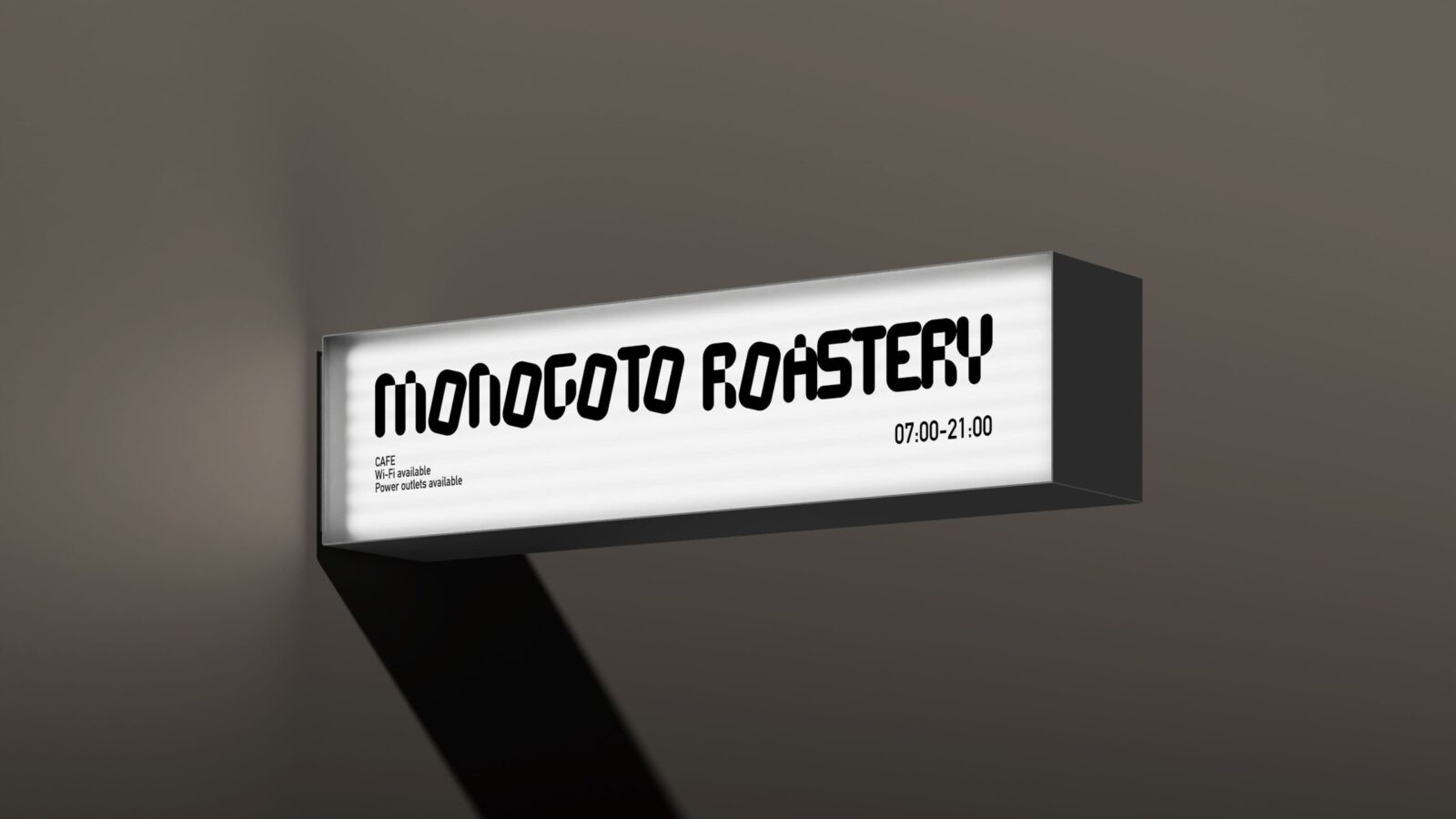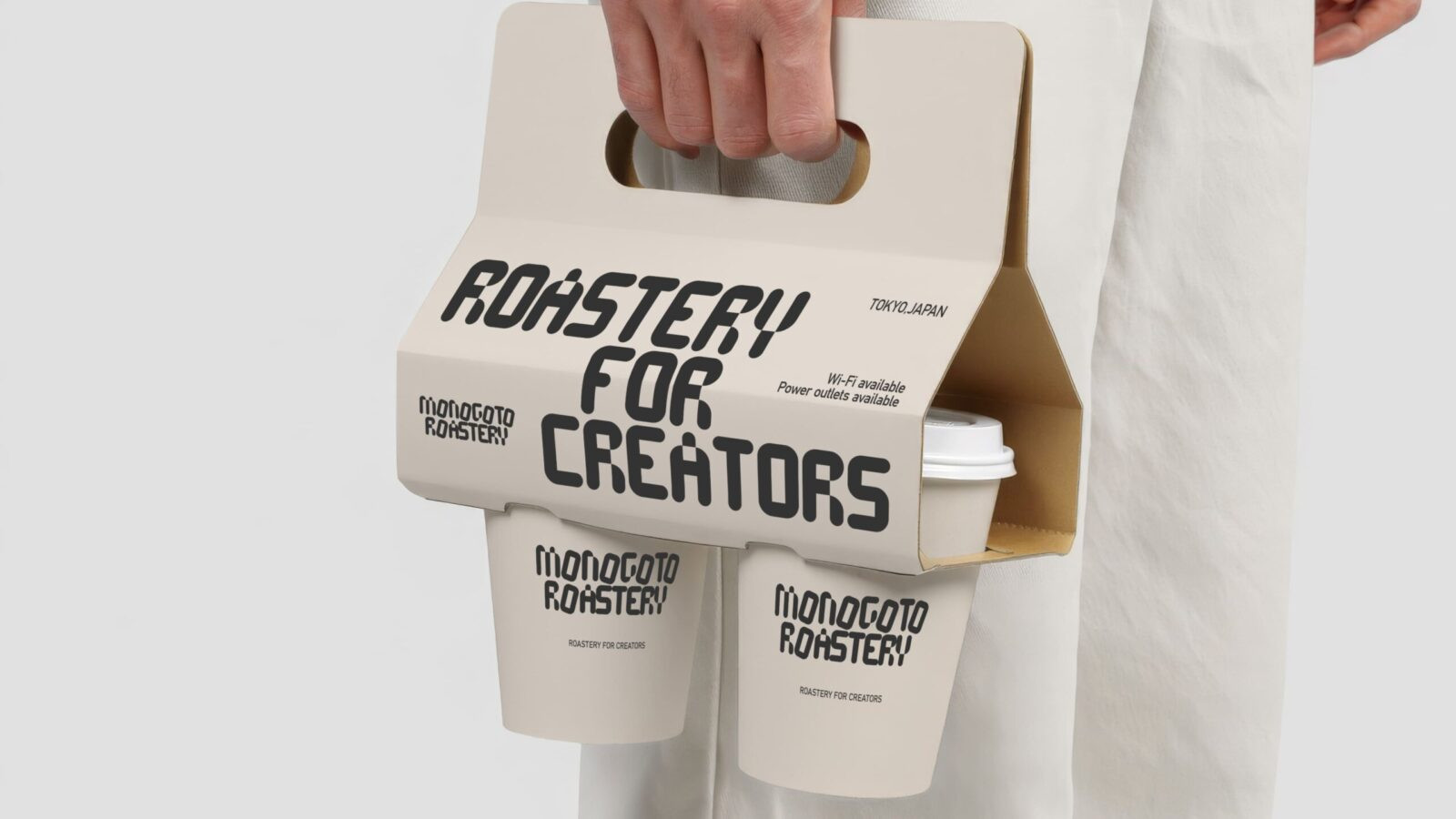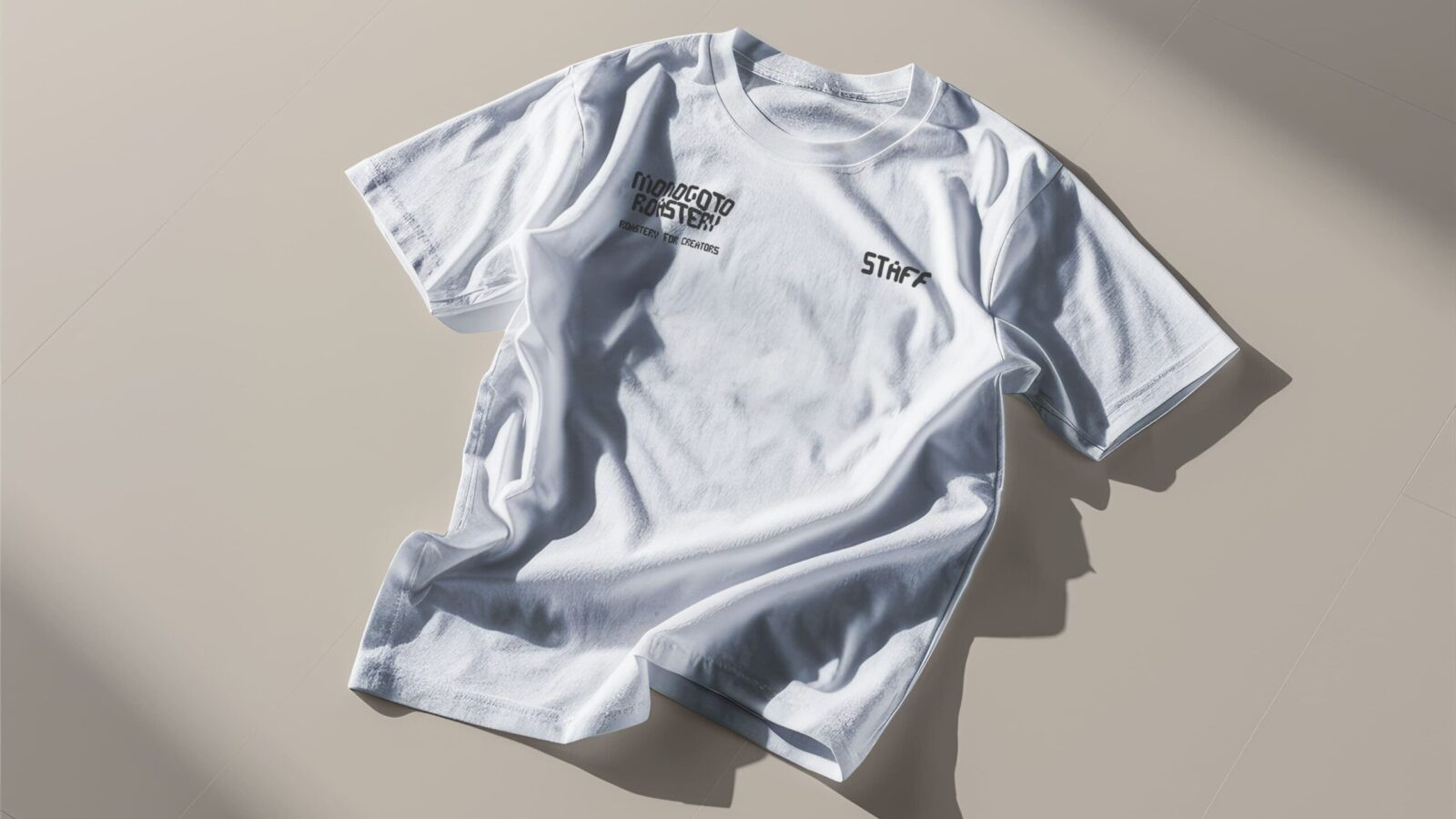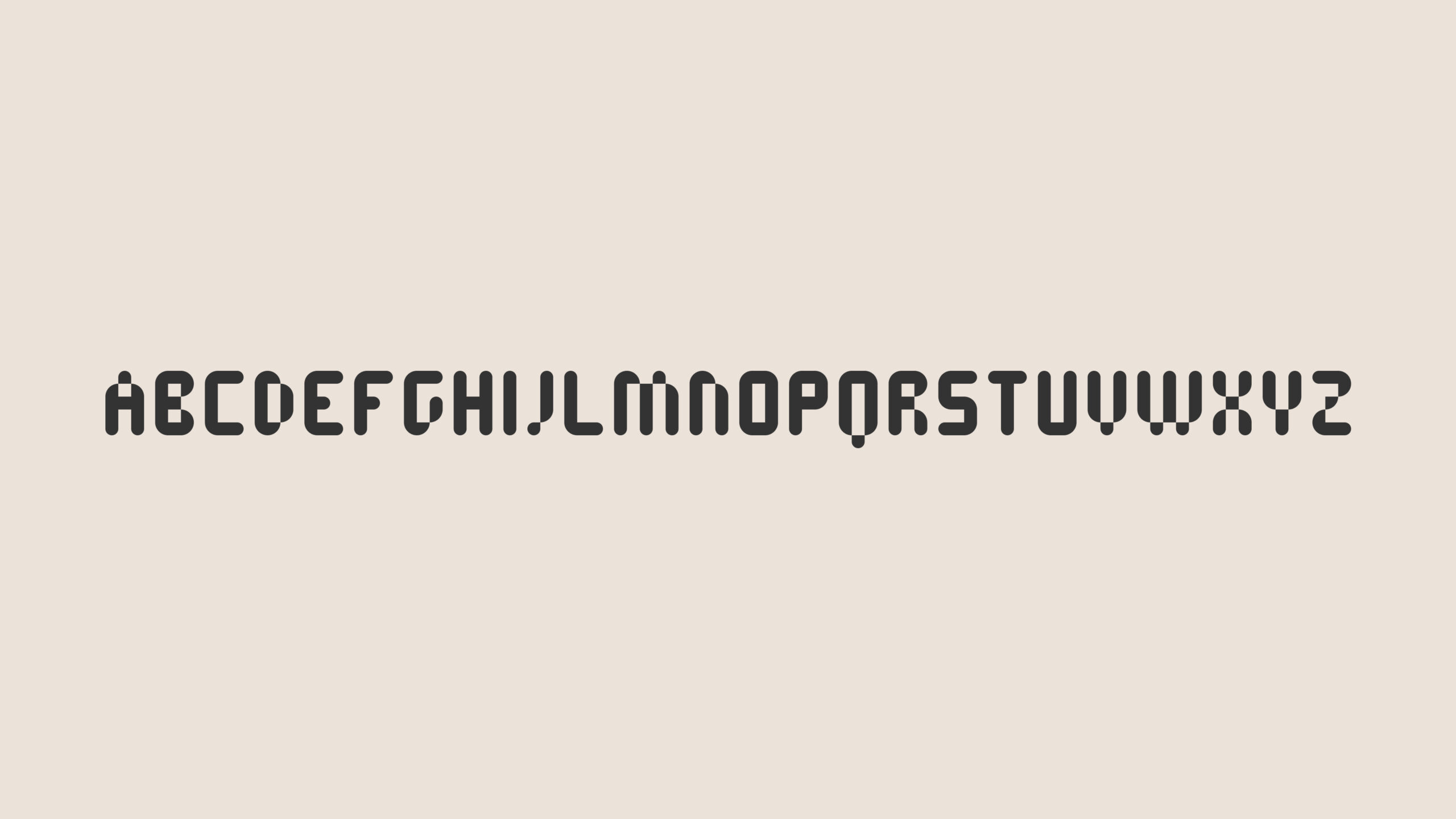
Shunya Wada Develops Monogoto Roastery With a System Driven Typeface and Spatial Identity
A brand proposal for a Tokyo cafe targeting creators, conceptualized as a place to refine and elevate MONOGOTO (thing). We handled everything from creating an original font to developing tool imagery.
The font is a dot-based slab serif typeface. It was designed to be distinctive yet systematically composable, enabling creative expression while also serving as a visual identity. Noting that all vowels in MONOGOTO share the letter O, the design systematically expresses the idea of organizing the cluttered nature of things by alternately tilting the O with the consonants.
These expressions are intended to be applied and used across various tools such as packaging, store signage, and uniforms.
The number of cafes in the Tokyo metropolitan area that are comfortable for creators to spend time in is decreasing year by year.
The reasons for this include population concentration in urban areas and the influx of tourists, which often leads to cafes being full. Even if you manage to get a seat, you might face restrictions on how long you can stay.
Various solutions to this problem have been proposed, but I attempted to propose a simple concept that seemed obvious yet was missing: a cafe specifically for creators.
This brand is not merely about packaging or stylish visuals; it is a business philosophy that should permeate everything from store design to service design. It aims to provide a stress-free cafe experience during the time creators spend contemplating and shaping their ideas. This is the raison d’être of MONOGOTO ROASTERY, and I believe it will be a refined proposal that sets itself apart from ordinary cafes.
Japan faces such a severe problem that the term “café refugees” has even emerged. We aim for a world where this solution spreads and the term “café refugees” no longer exists. And we support creators in generating countless ideas to improve society starting from cafés.